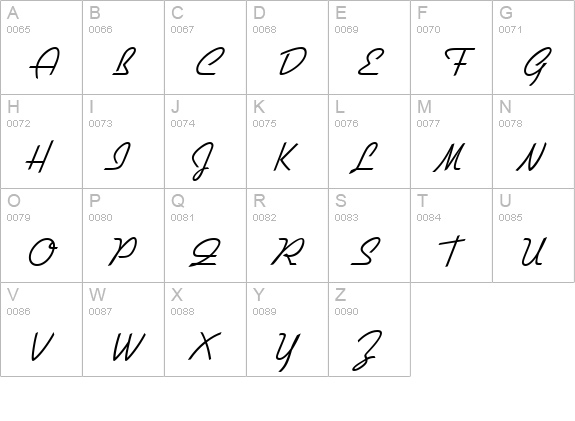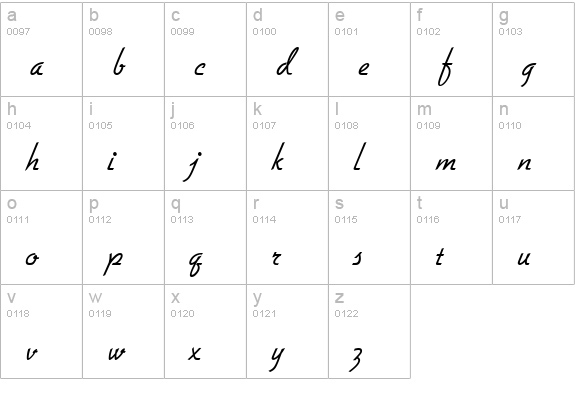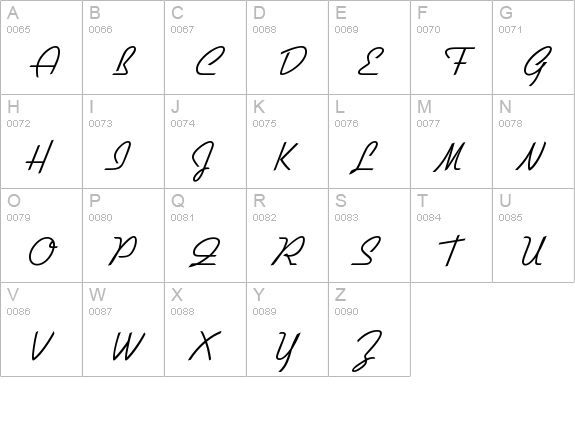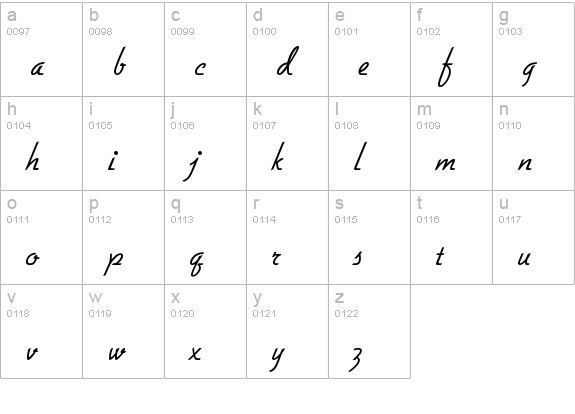
Giulio-Regular is the standard, neutral variant in the Giulio typeface family \xE2\x80\x94 well suited to general body text, paragraphs, and standard typographic work.
Giulio-Regular is a versatile and elegant font that exudes sophistication and classic charm. Its clean lines and balanced proportions make it ideal for a wide range of design projects, from branding and packaging to editorial and web design. With a timeless appeal, Giulio-Regular is sure to add a touch of refinement to any creative endeavor. The best part? Giulio-Regular is available for free download at FontsMarket.com, making it easily accessible for designers and creatives looking to elevate their work with a high-quality typeface. Whether you're crafting a logo, designing a website, or creating print materials, Giulio-Regular offers a polished and professional look that will enhance your projects effortlessly. Don't miss out on the opportunity to enhance your designs with the timeless beauty of Giulio-Regular. Download this exquisite font for free at FontsMarket.com and take your creations to the next level.